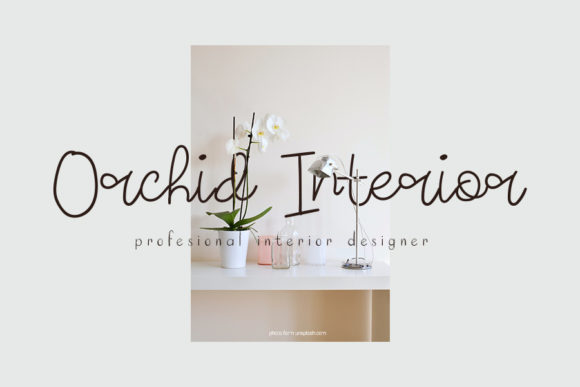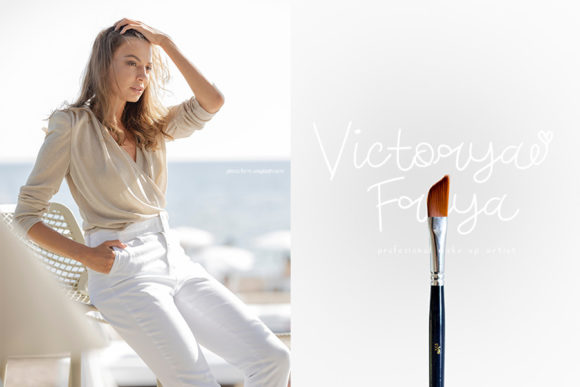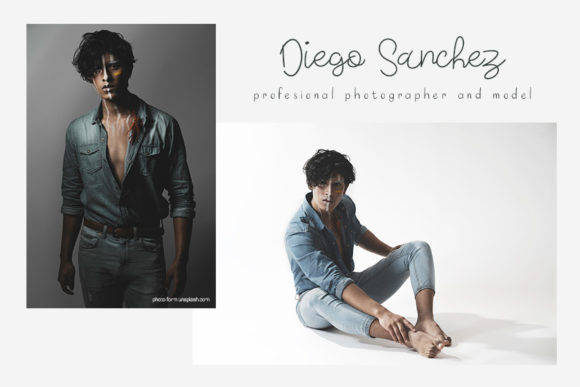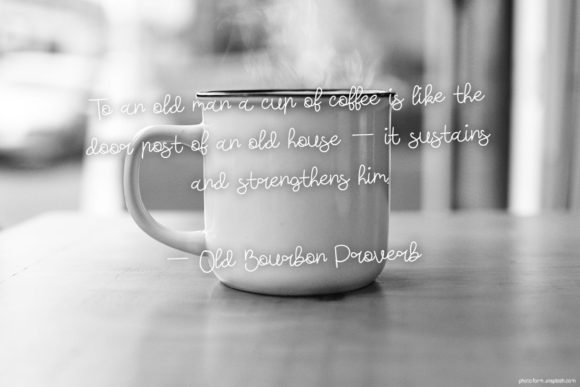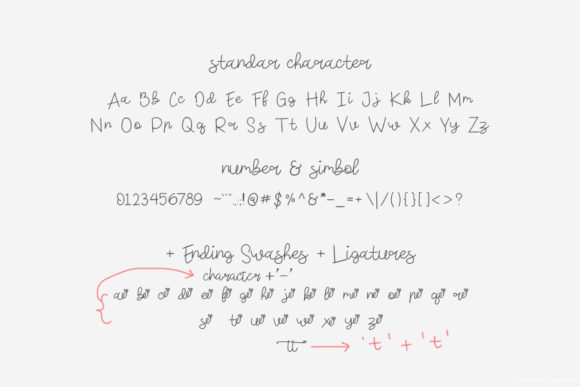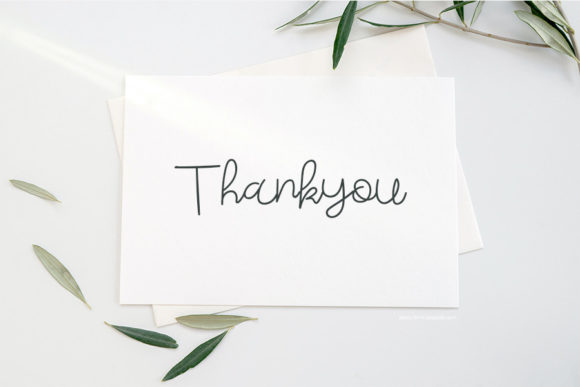
Easter Love Font: The Perfect Addition to Your Design Collection
Are you looking for a font that exudes a sense of elegance and whimsy? Look no further than the Easter Love Font! This beautiful, handwritten font is sure to capture your heart with its refined touch and timeless style. In this article, we’ll dive into the world of Easter Love Font and explore its features, uses, and benefits for designers and crafters.
What is Easter Love Font?
Easter Love Font is a cute and dainty handwritten font that is described by a refined touch. Its distinct and timeless style makes it perfect for creating spectacular designs that stand out from the crowd. Whether you’re working on a project for Easter, a spring-themed event, or simply want to add a touch of elegance to your design, Easter Love Font is the perfect choice.
Features of Easter Love Font
So, what makes Easter Love Font so special? Here are just a few of its key features:
- Handwritten style: Easter Love Font has a beautiful, handwritten style that adds a personal touch to any design.
- Refined touch: The font’s refined touch gives it a sense of elegance and sophistication.
- Distinct and timeless style: Easter Love Font’s unique style ensures that your designs will stand out and remain relevant for years to come.
- Cute and dainty: The font’s cute and dainty nature makes it perfect for spring-themed designs, Easter projects, and more.
Uses of Easter Love Font
Easter Love Font is a versatile font that can be used for a wide range of design projects. Here are just a few ideas to get you started:
- Easter projects: Use Easter Love Font to create adorable Easter cards, invitations, and decorations.
- Spring-themed designs: The font’s spring-inspired style makes it perfect for designs celebrating the season.
- Wedding and event designs: Easter Love Font’s elegant style makes it a great choice for wedding and event designs, such as invitations, programs, and more.
- Stationery and paper crafts: Add a touch of elegance to your stationery and paper crafts with Easter Love Font.
Benefits of Using Easter Love Font
So, why should you choose Easter Love Font for your design projects? Here are just a few benefits:
- Unique and eye-catching: Easter Love Font’s distinct style ensures that your designs will stand out and grab attention.
- Elegant and sophisticated: The font’s refined touch adds a sense of elegance and sophistication to any design.
- Versatile: The font’s versatility makes it suitable for a wide range of design projects.
Tips for Using Easter Love Font
Here are a few tips to help you get the most out of Easter Love Font:
- Pair with complementary fonts: Pair Easter Love Font with complementary fonts to create a unique and visually appealing design.
- Experiment with colors: The font’s elegant style looks great with a wide range of colors, so don’t be afraid to experiment and find the perfect combination.
- Use for headings and titles: Easter Love Font’s bold and elegant style makes it perfect for headings and titles.
| Author | Creassion Studio |
In conclusion, Easter Love Font is a beautiful and versatile font that is perfect for designers and crafters looking to add a touch of elegance and whimsy to their designs. With its refined touch, distinct and timeless style, and cute and dainty nature, Easter Love Font is sure to capture your heart and become a staple in your design collection. So why wait? Download Easter Love Font today and start creating spectacular designs that will leave a lasting impression!